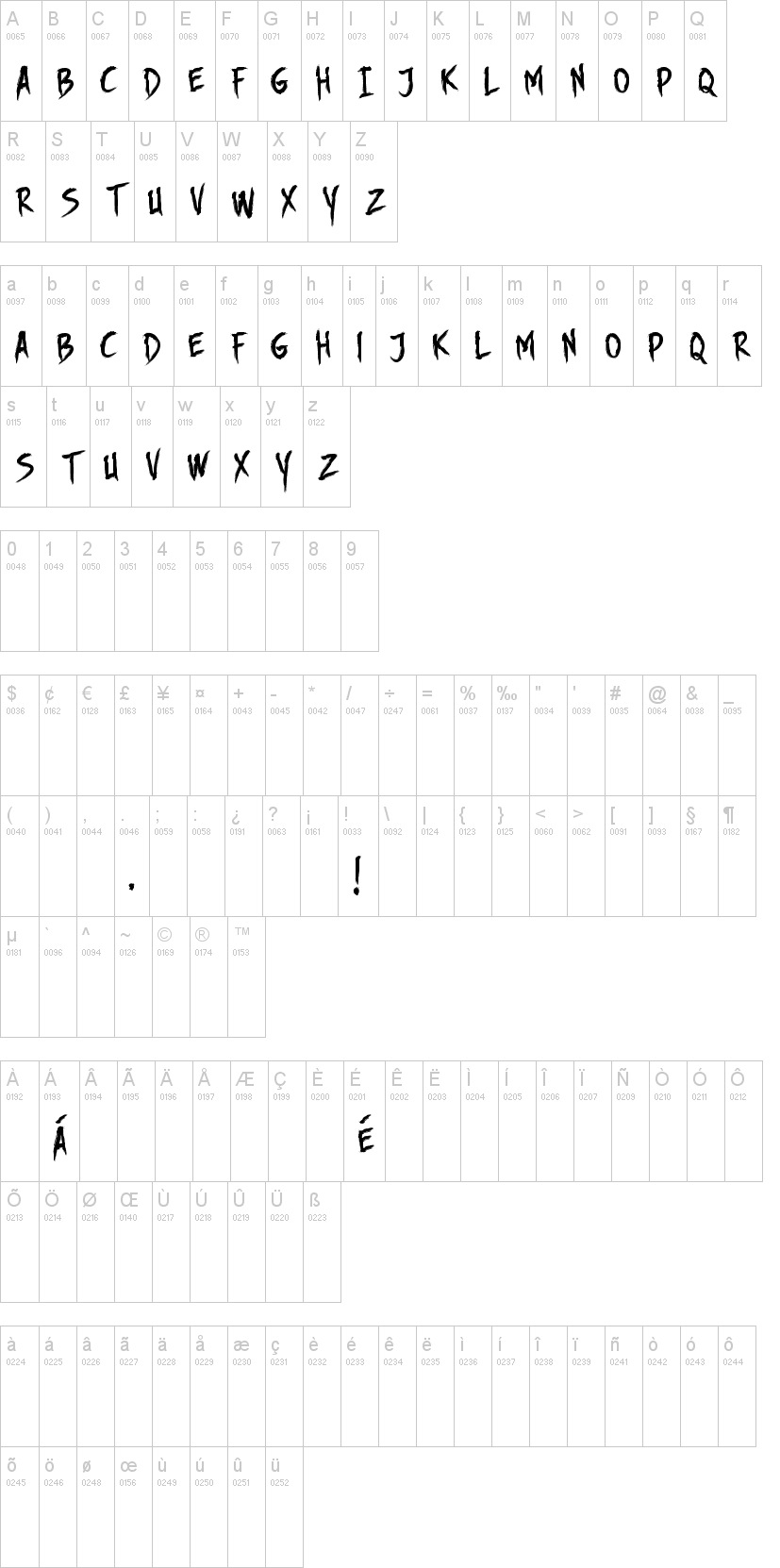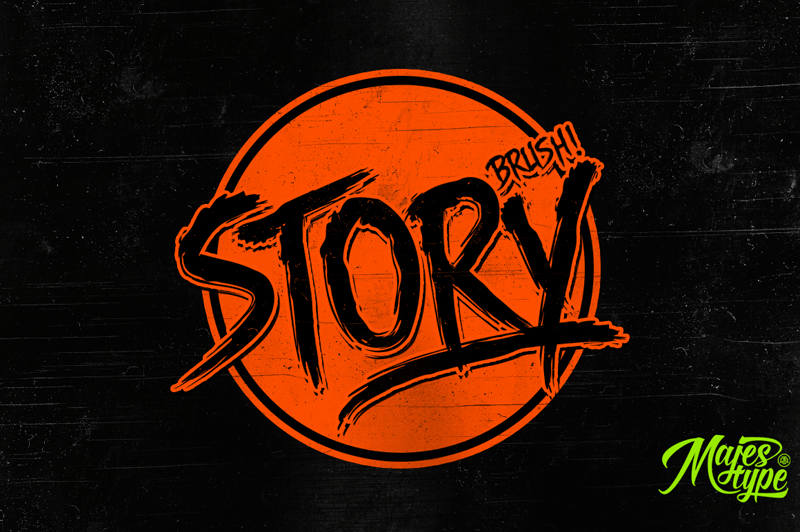
STORY BRUSH is the high detailed brush font that has over 240 glyphs. Coming with 2 Version, Regular and slanted. This font is equipped with OpenType feature to make custom feel for your design. This font is designed for t-shirts design, logos, horror design, grunge & etc.